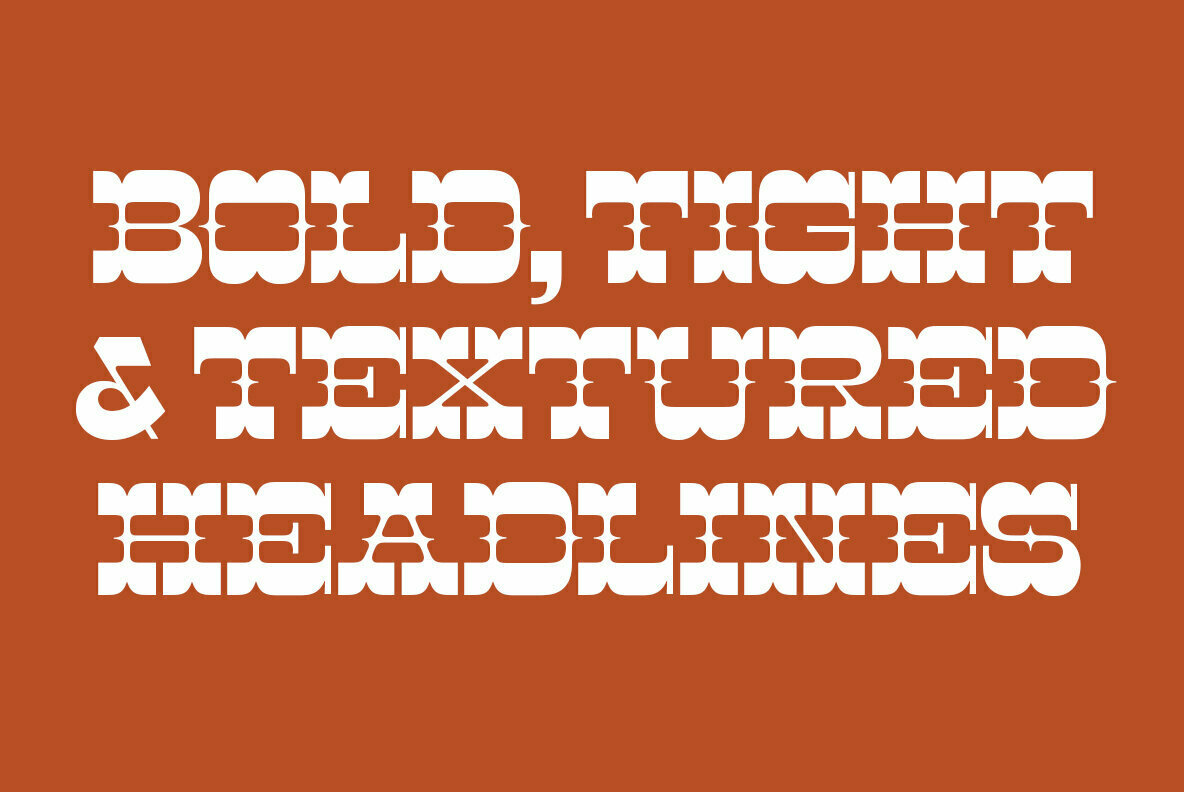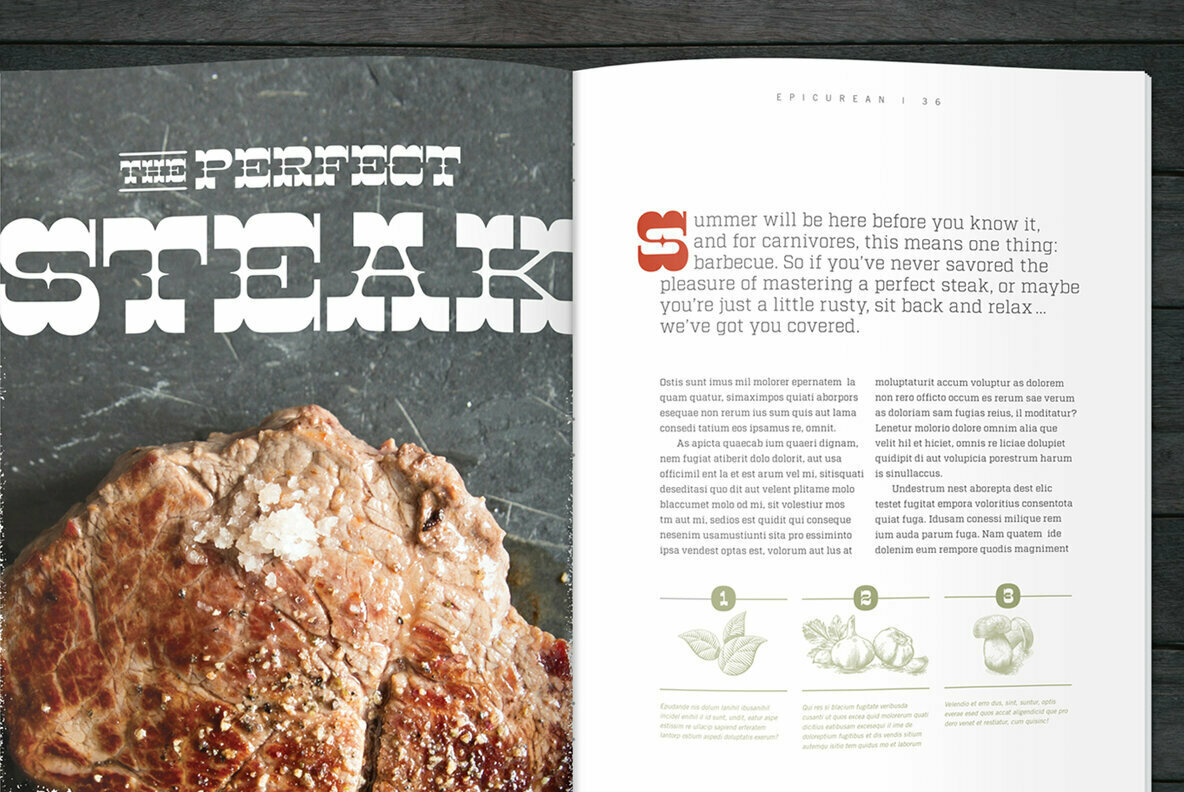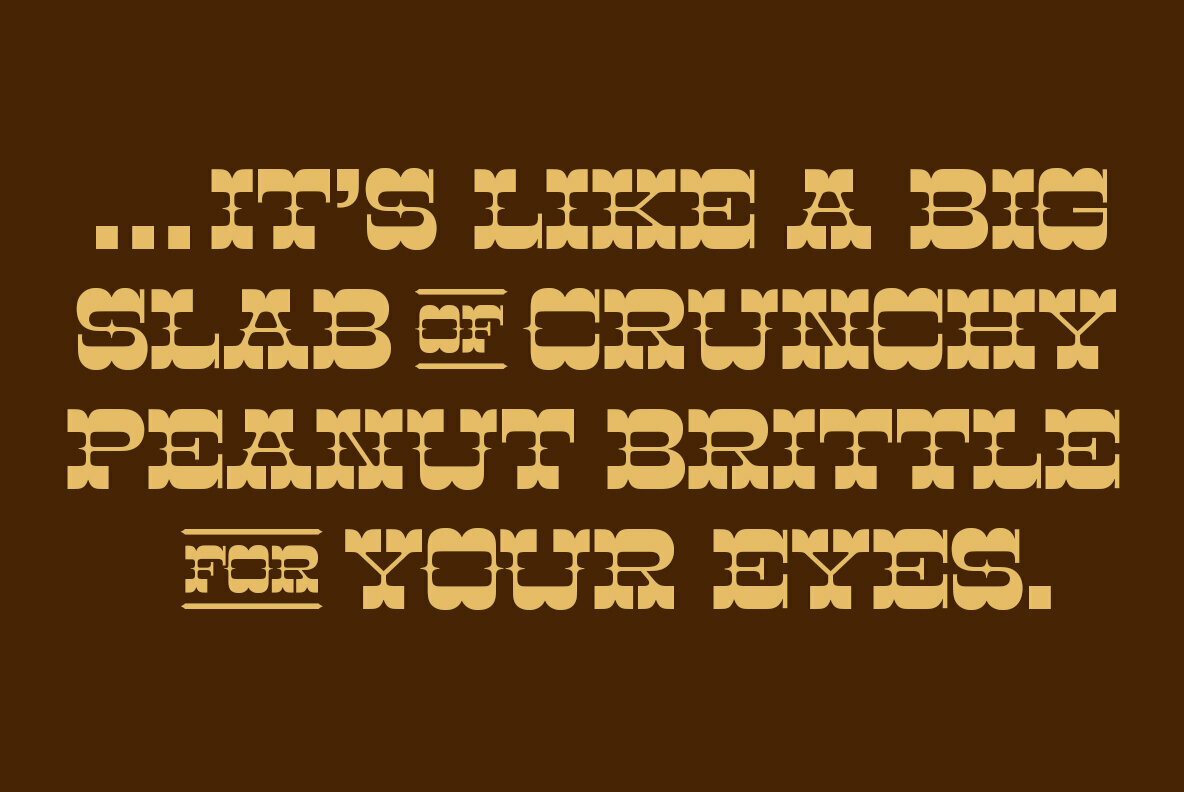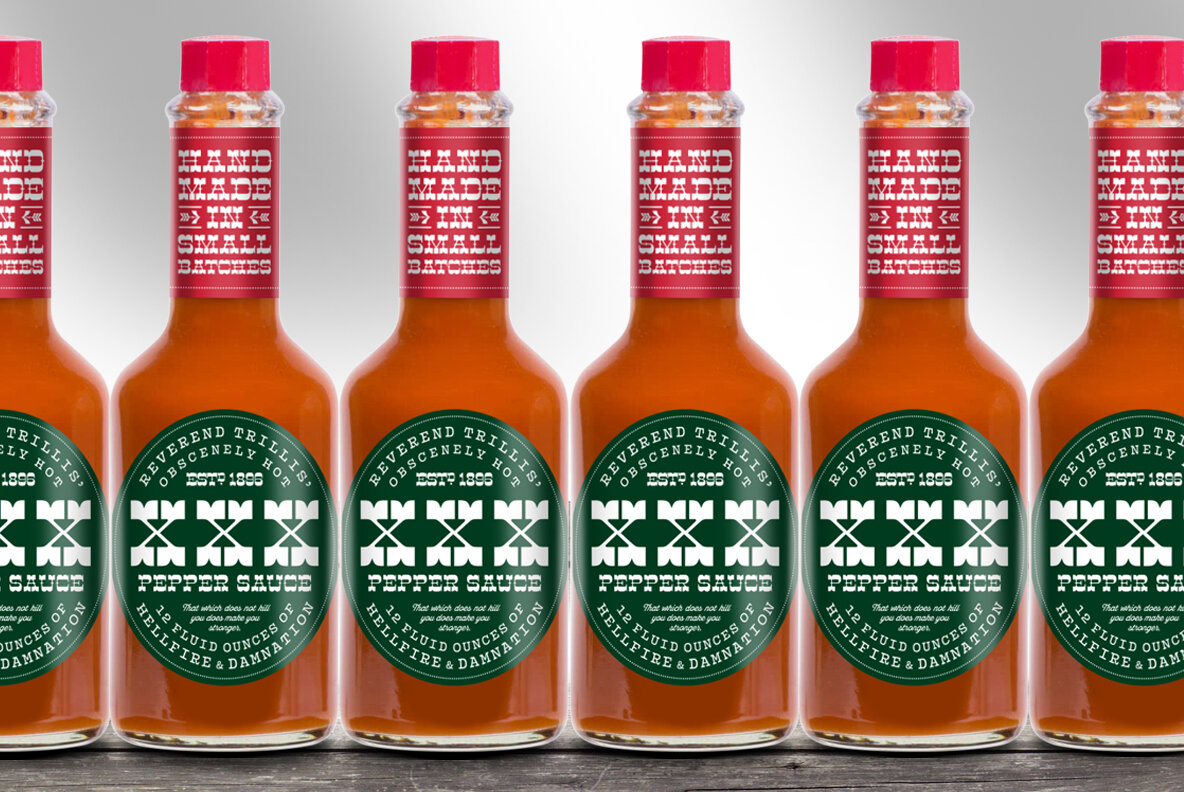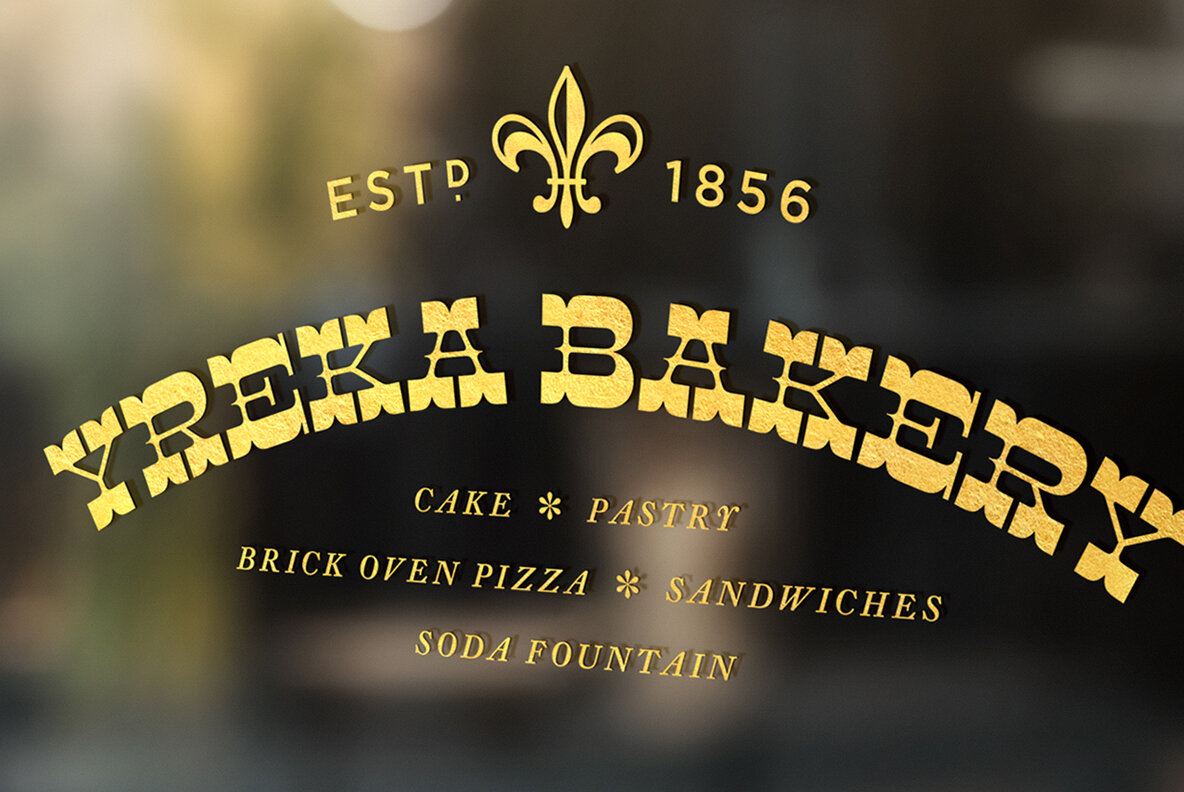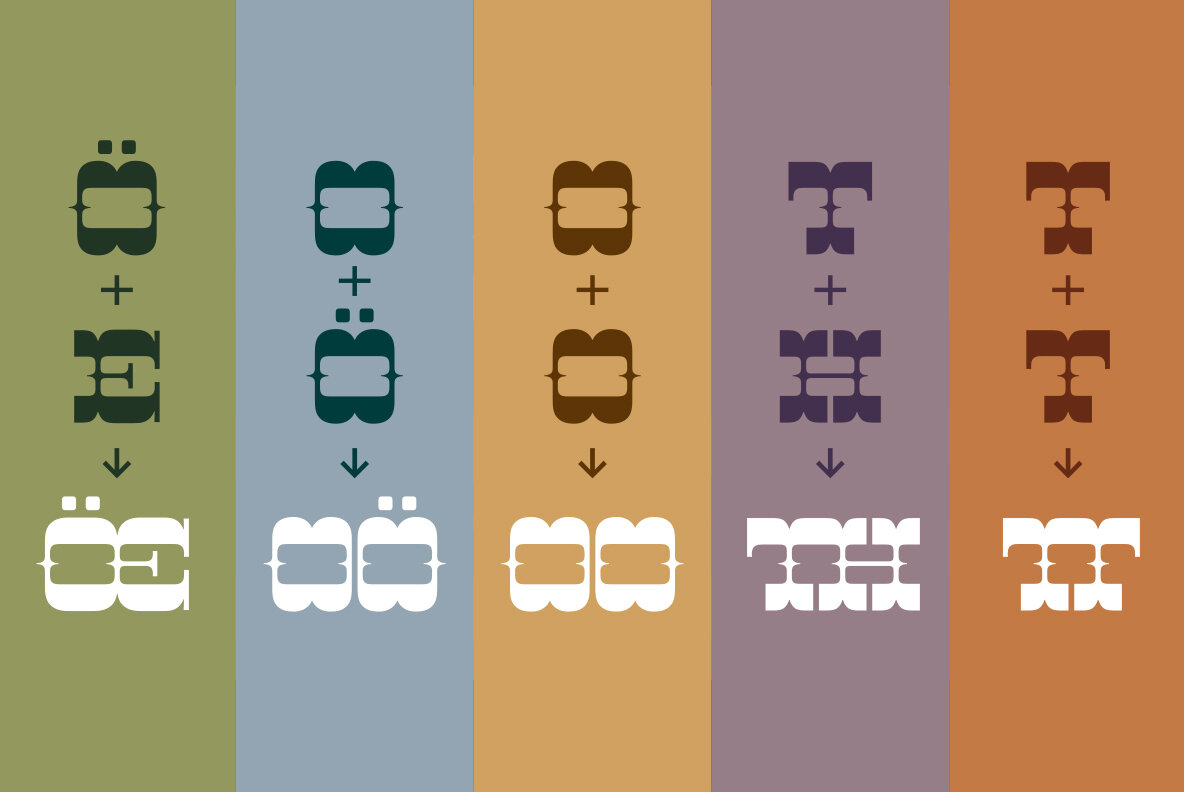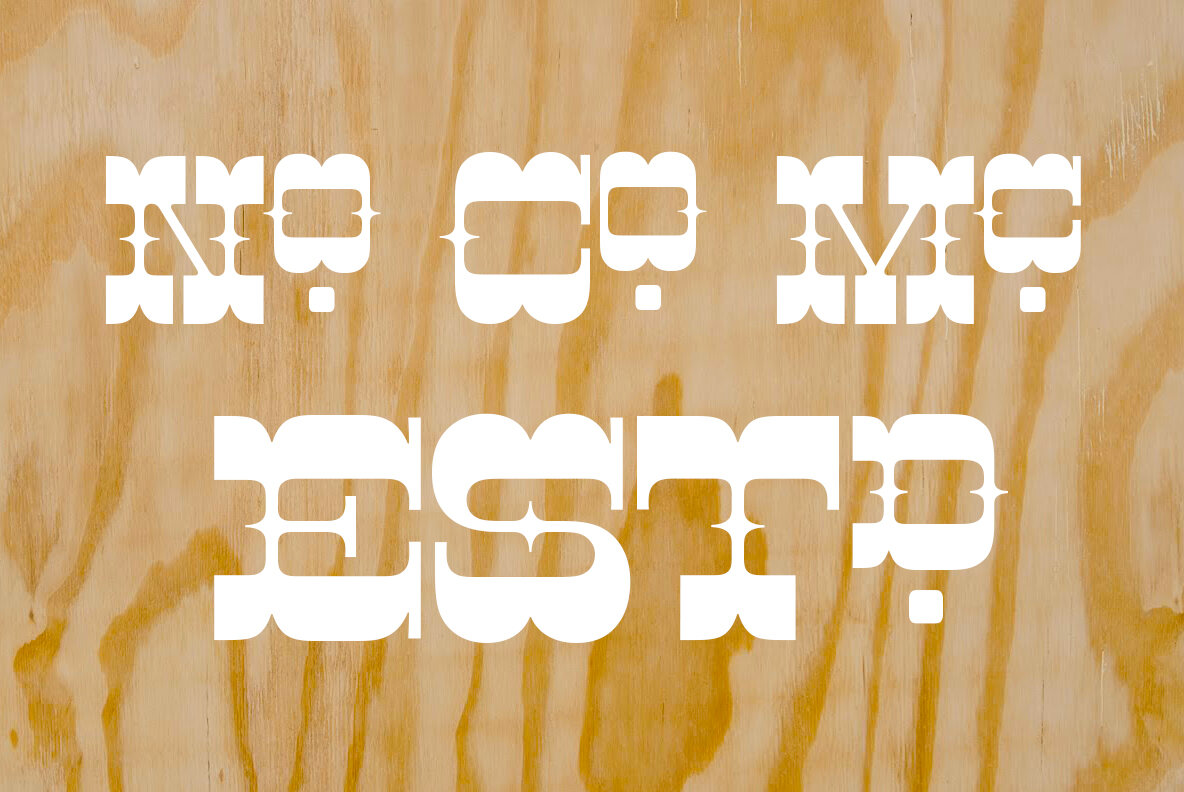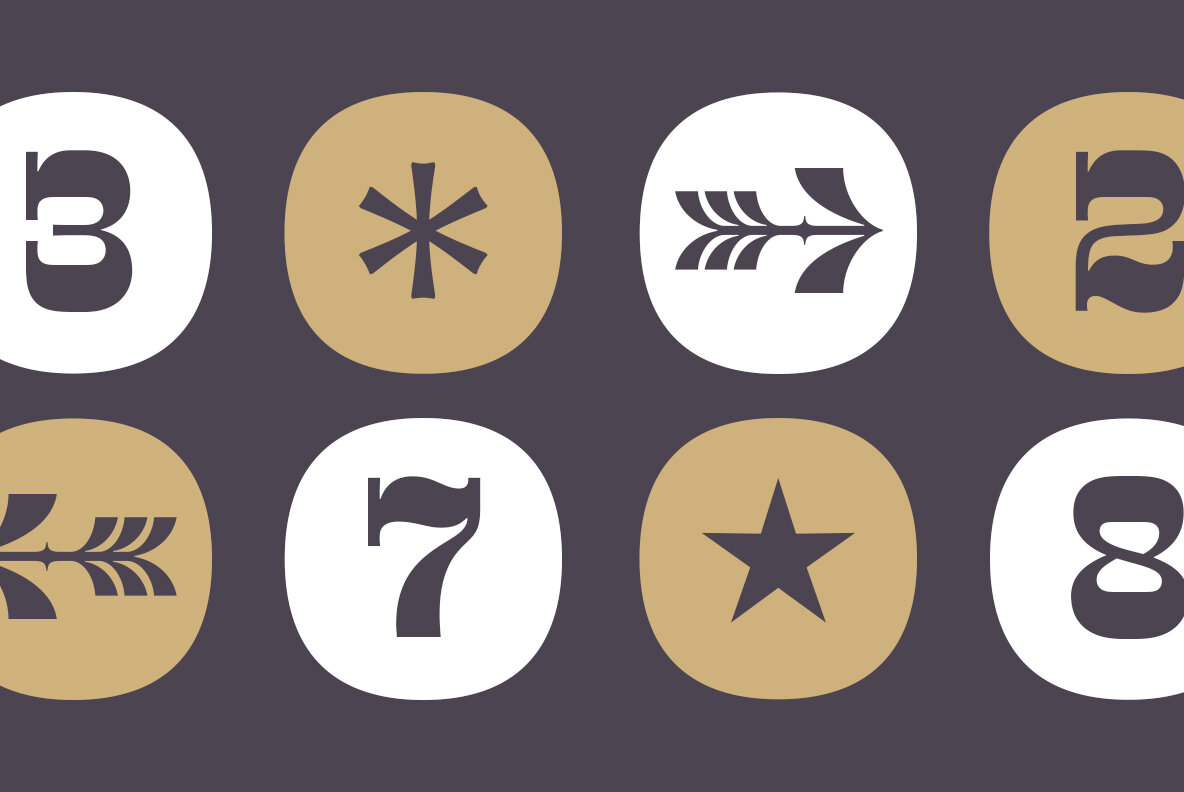
Cayuse Font
Cayuse is a super-slab, all-caps titling face that tips its hat to the classic French and Italian “fat face” serifs of the nineteenth century. Structurally, Cayuse utilizes a reverse-stress stroke configuration—with thick, meaty slab serifs and sinuous, spiked connecting strokes. This crackling contrast gives Cayuse a very black, super dense texture, and the ability to combine and contrast well with other typefaces. Arm yourself with Cayuse to create richly-textured, high-impact typography for packaging, editorial, brand identity, posters, signage, and many other applications. What's more, Cayuse also features an array of “word logos”, providing you even more options for creating dynamic typography.